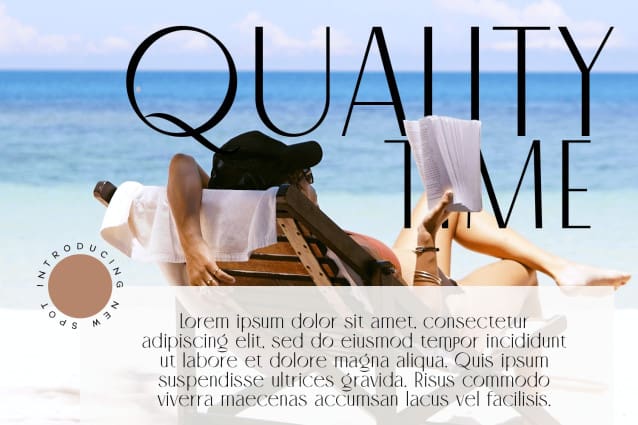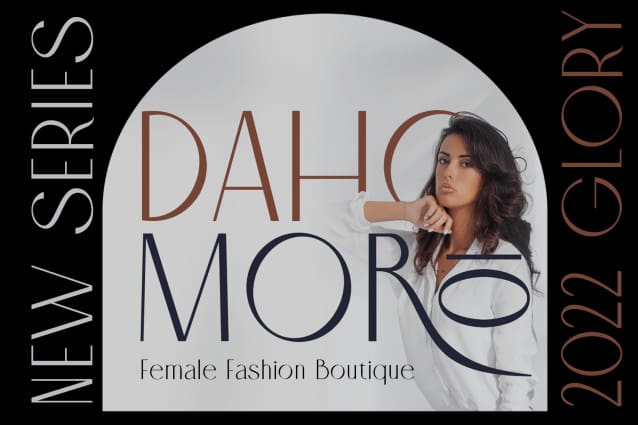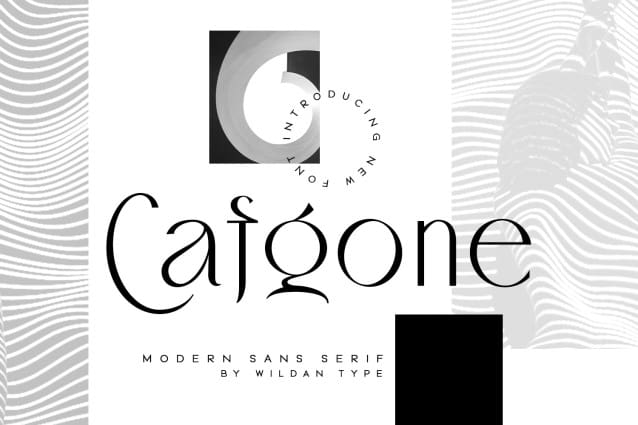
Cafgone Font
Cafgone Font is a modern display sans serif. That is perfect for branding projects and quotes. Best used as a display for headings and logos, Cafgone Font clean lines and subtle contrast give any project a touch of luxury and class.
There are also decorative alternates and ligature available for uppercase letters and lowercase, so you can mix and match to add extra character and interest to logos and wordmarks.